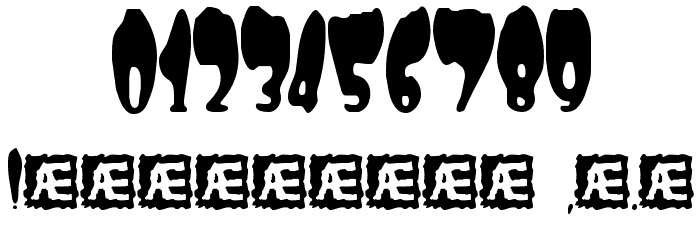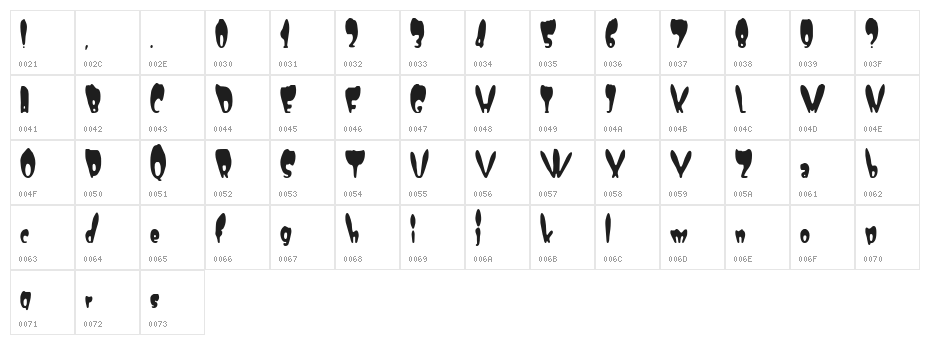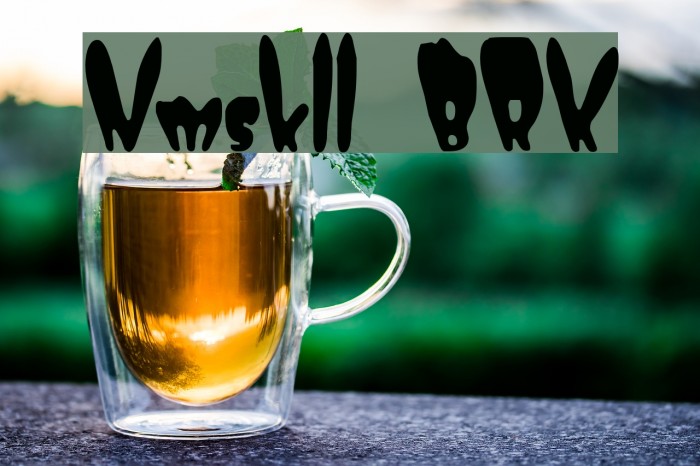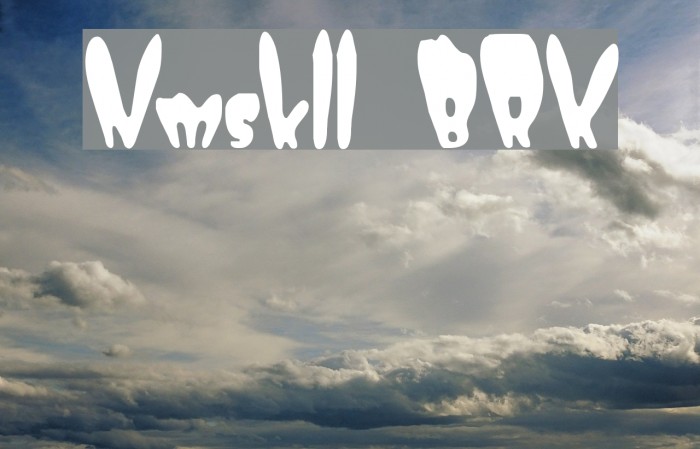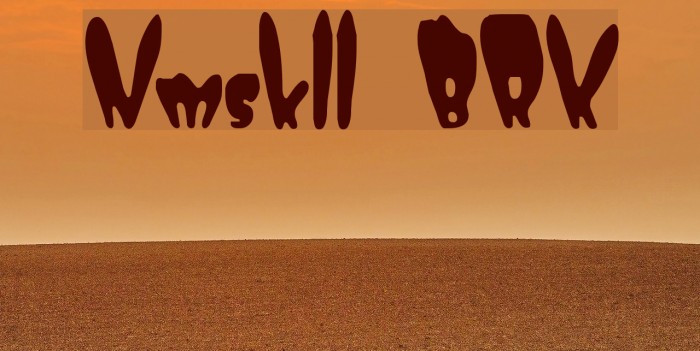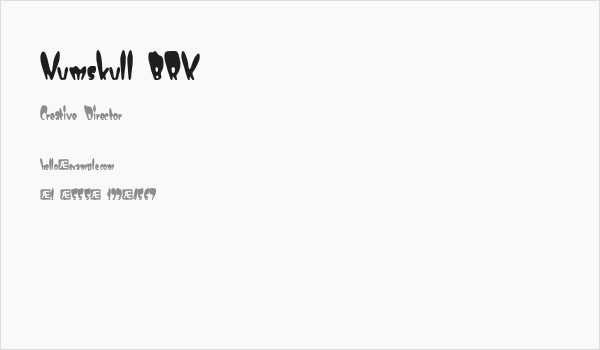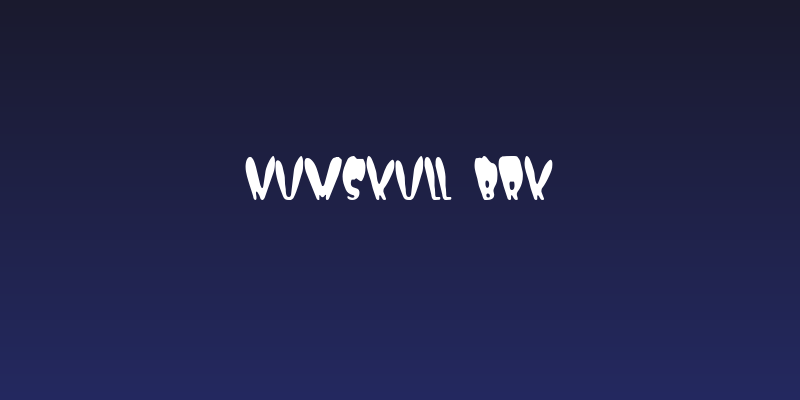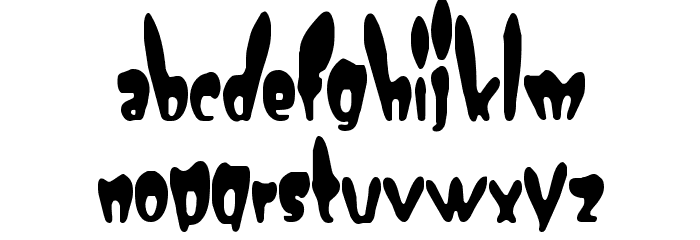
Numskull BRK Font
Numskull BRK Description
This font features a bold and playful design with exaggerated, irregular shapes that give it a quirky and whimsical appearance. The characters have a unique, almost cartoonish style, with varying stroke thicknesses and a slightly distorted form that adds to its charm. The uppercase and lowercase letters maintain a consistent style, while the numbers and special characters follow the same playful theme. This font is perfect for projects that require a fun and eye-catching aesthetic.
| Overall Style | Whimsical |
| Proposed Projects | Ideal for children's books, comic strips, party invitations, and playful branding. |